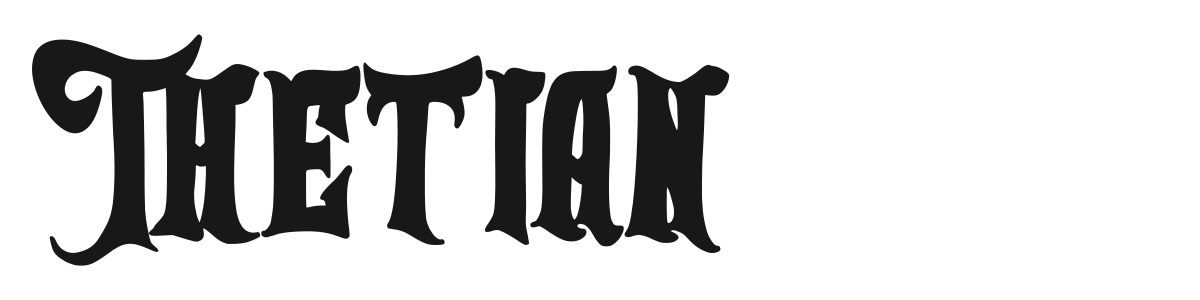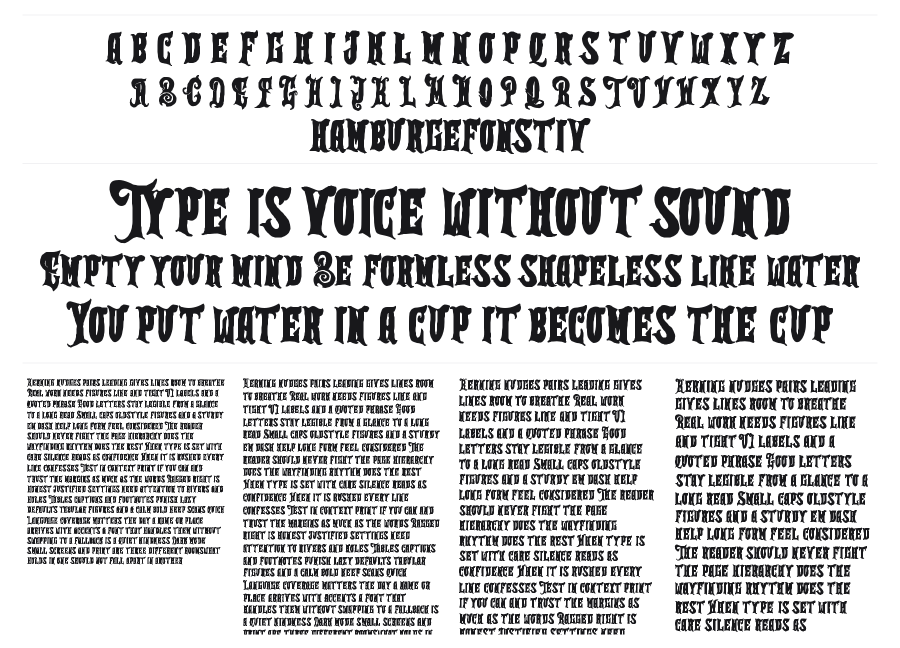
Thetian
Thetian is a heavy condensed display font with strong blackletter DNA and a rock-poster attitude. Thick stems, swelling organic terminals, and extreme stroke contrast give each character a hand-carved, almost molten quality. It reads loud and dark at large sizes, landing naturally on band merch, horror artwork, and vintage-styled branding.